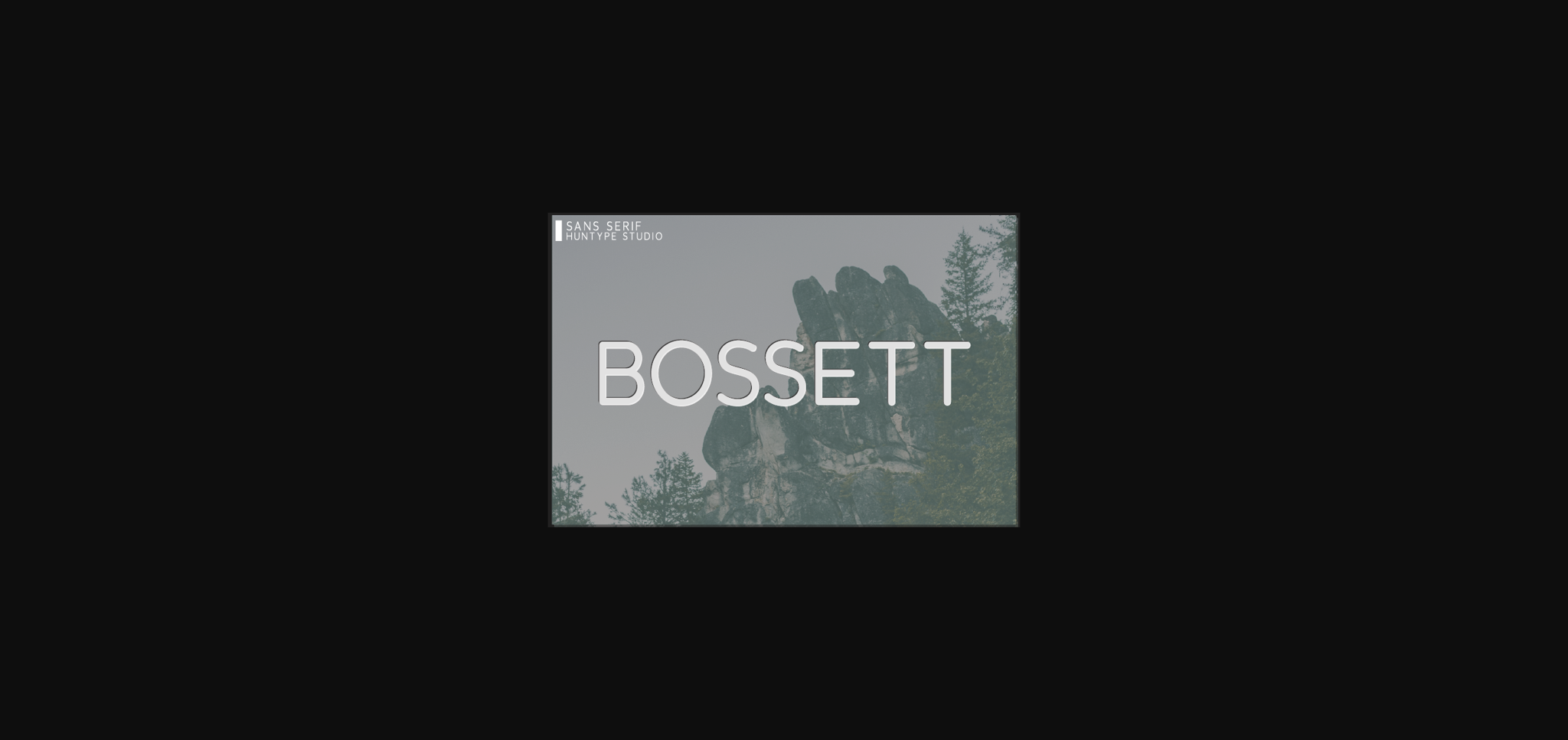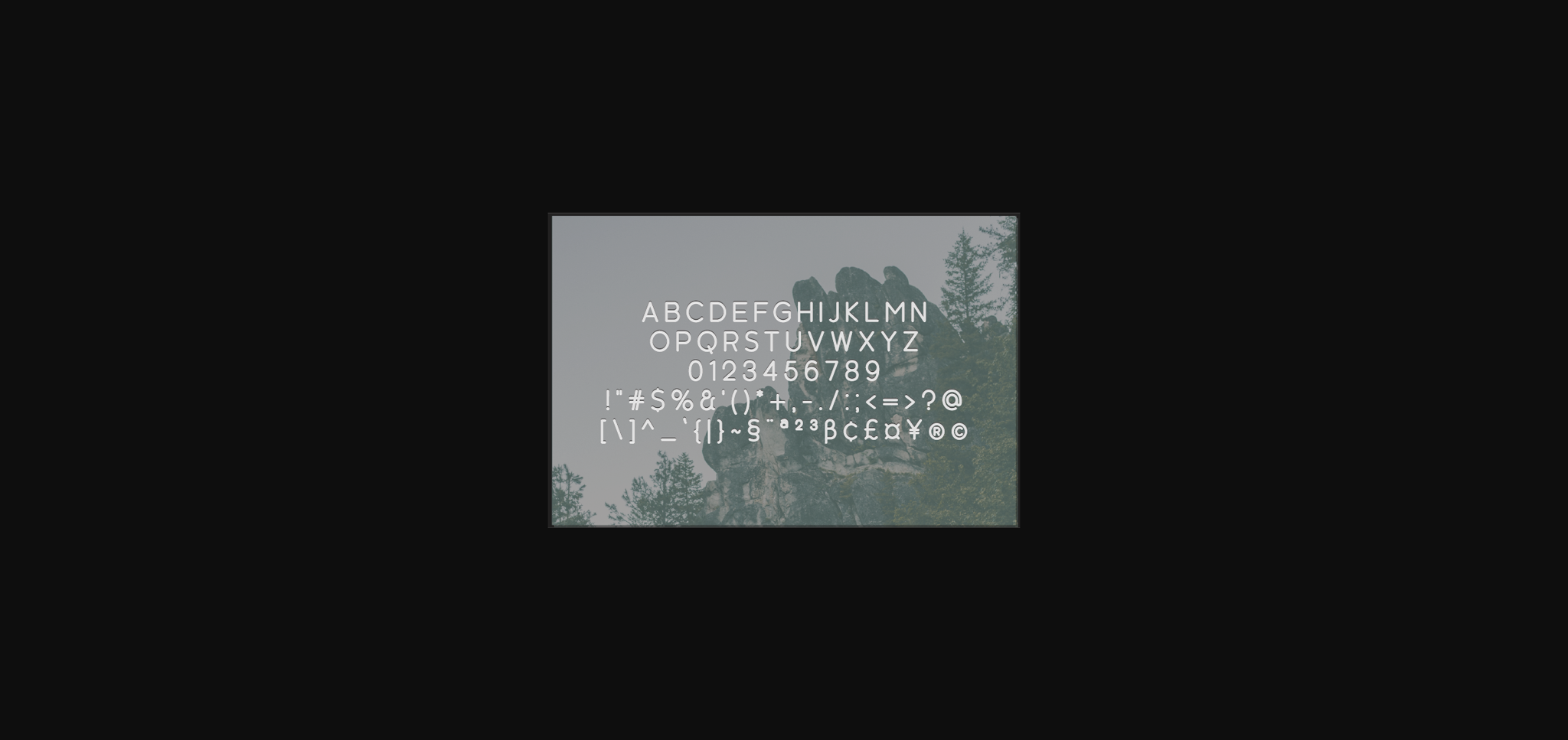
Bossett Font
About Bossett Font
Bossett is a thin and simple lettered sans serif font. It can easily be matched to an incredibly large set of projects, so add it to your creative ideas and notice how it makes them stand out!